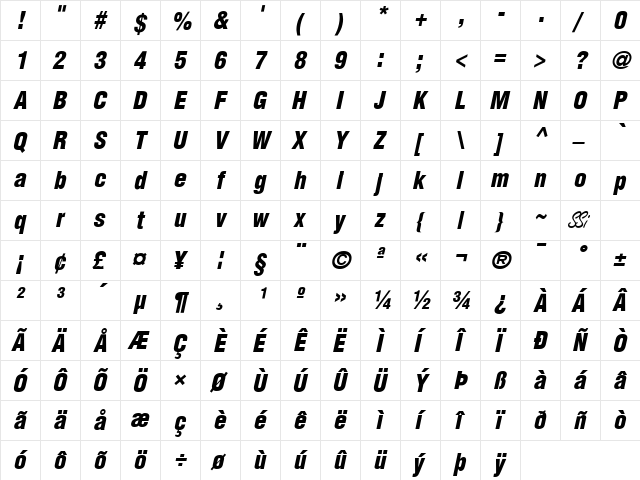
Context Black Condensed SSi Black Condensed Italic Font Preview
Design Context for Context Black Condensed SSi Typeface
Context Black Condensed SSi is a composed and adaptable typeface that performs quietly and consistently across a wide range of design contexts. The slanted form adds forward momentum and visual energy. The condensed width makes it efficient for tight spaces without sacrificing legibility.
Pro Tip: Try Context Black Condensed SSi for annotation and caption copy alongside an upright companion — the contrast in angle creates a dynamic but ordered typographic system.